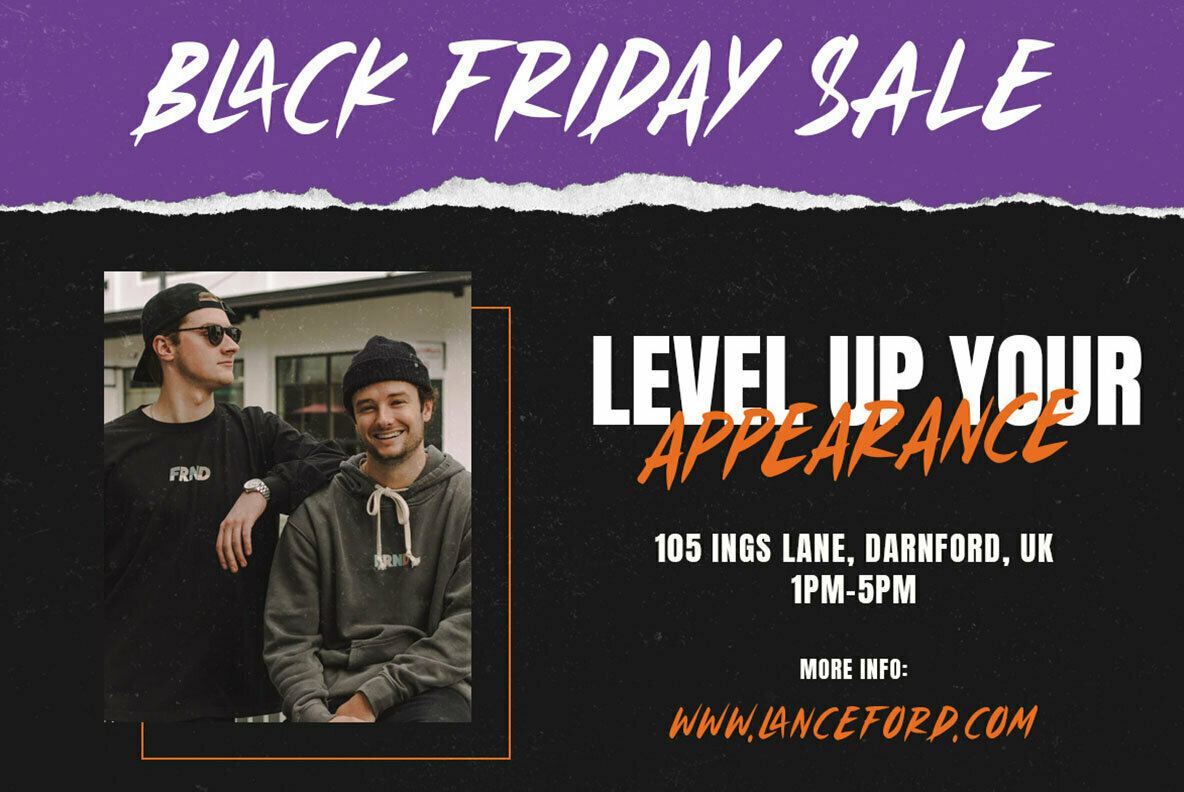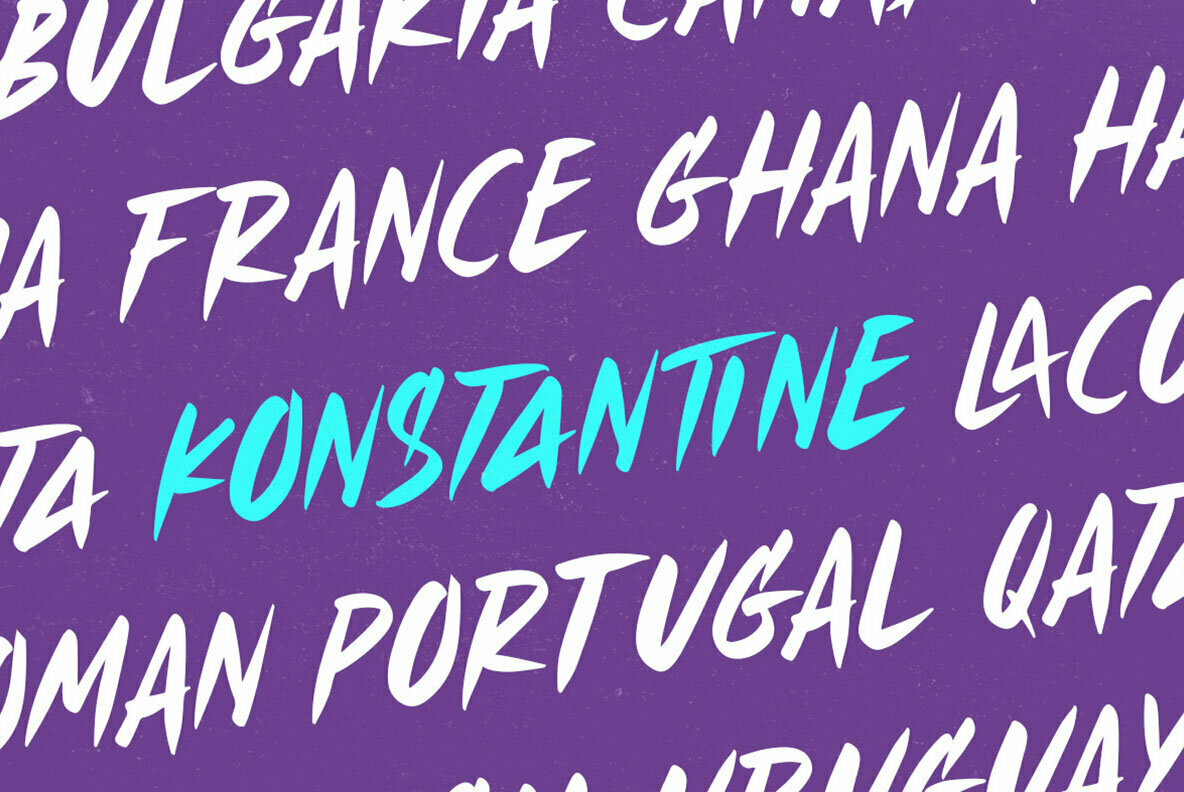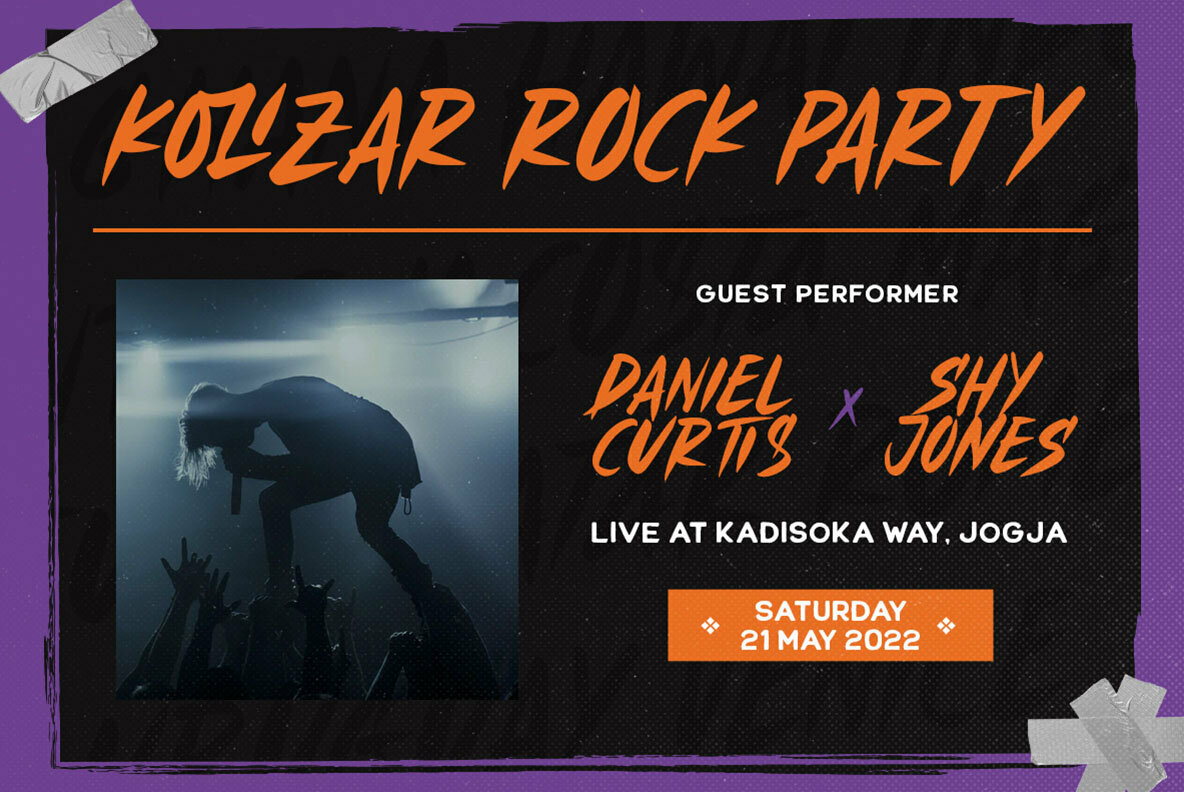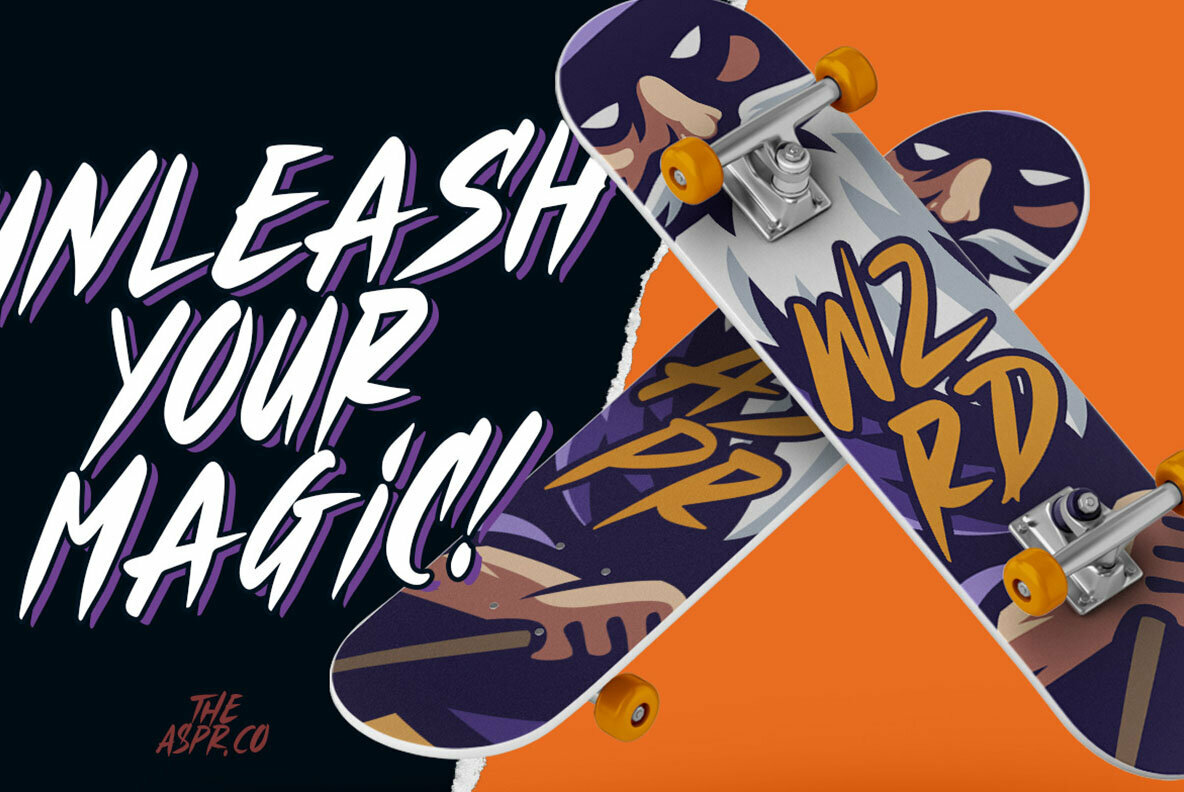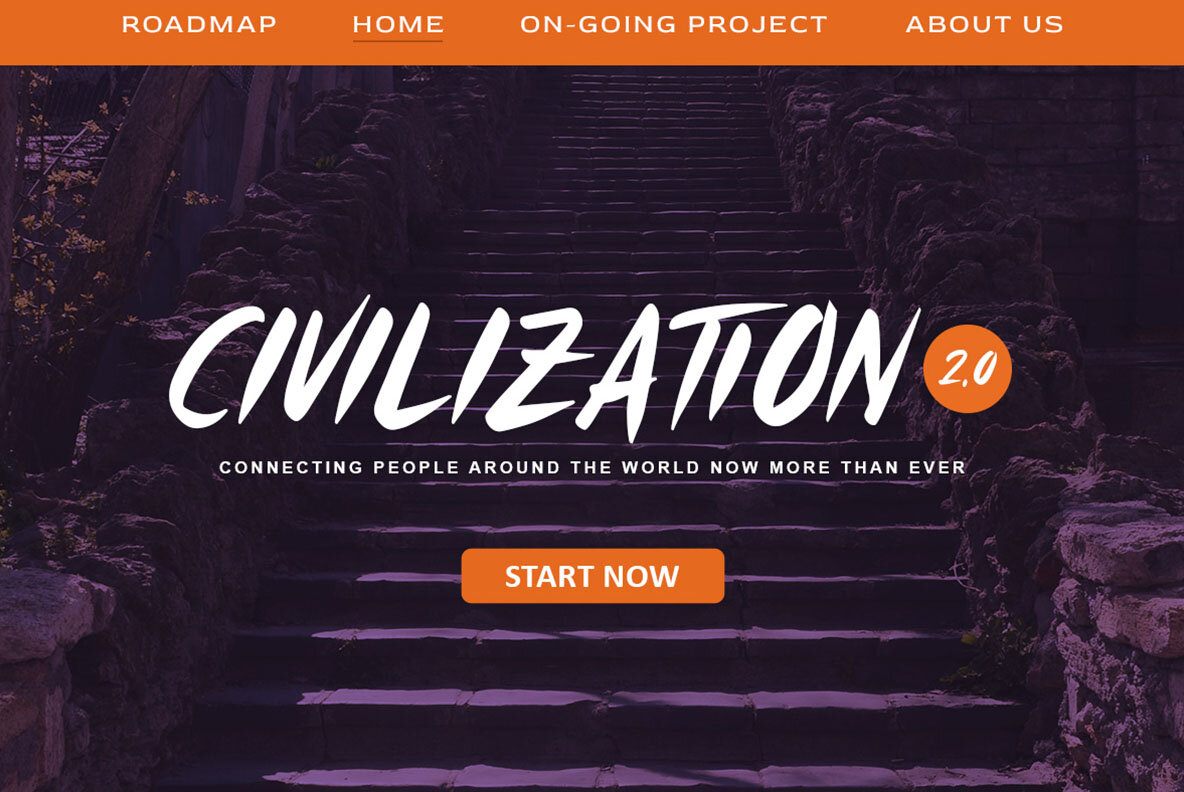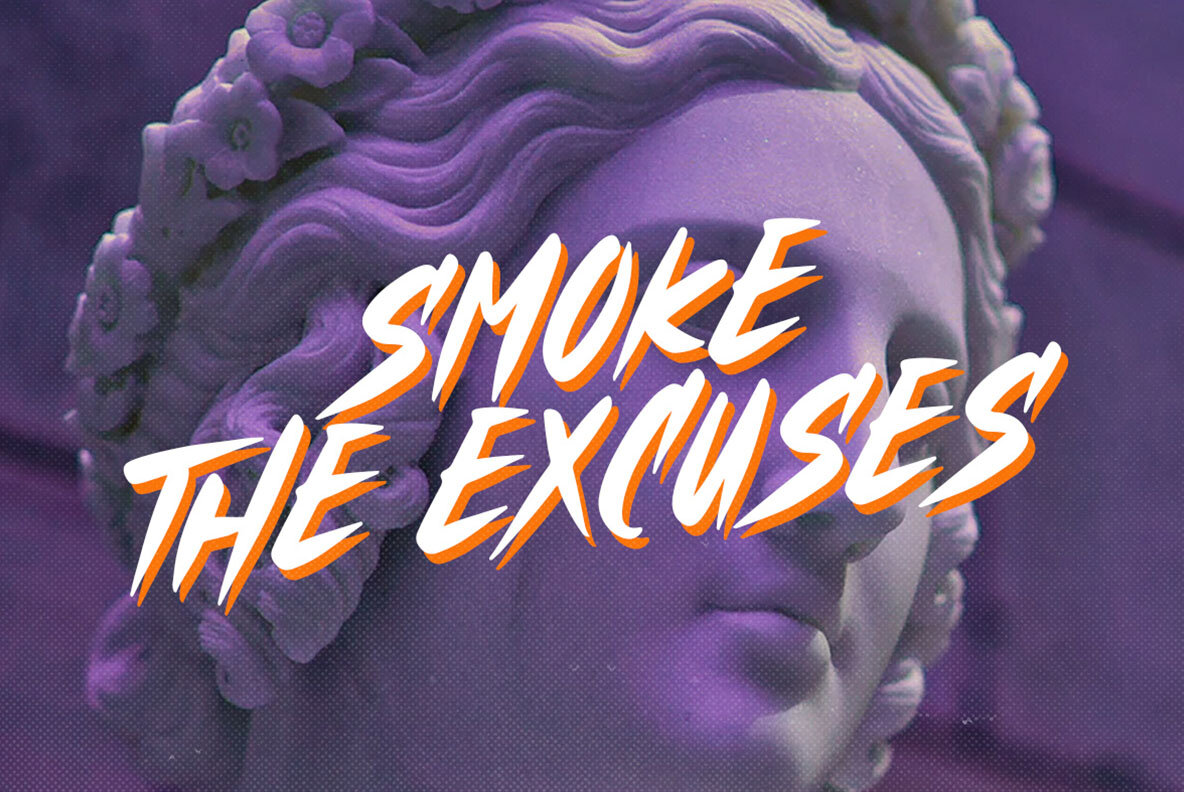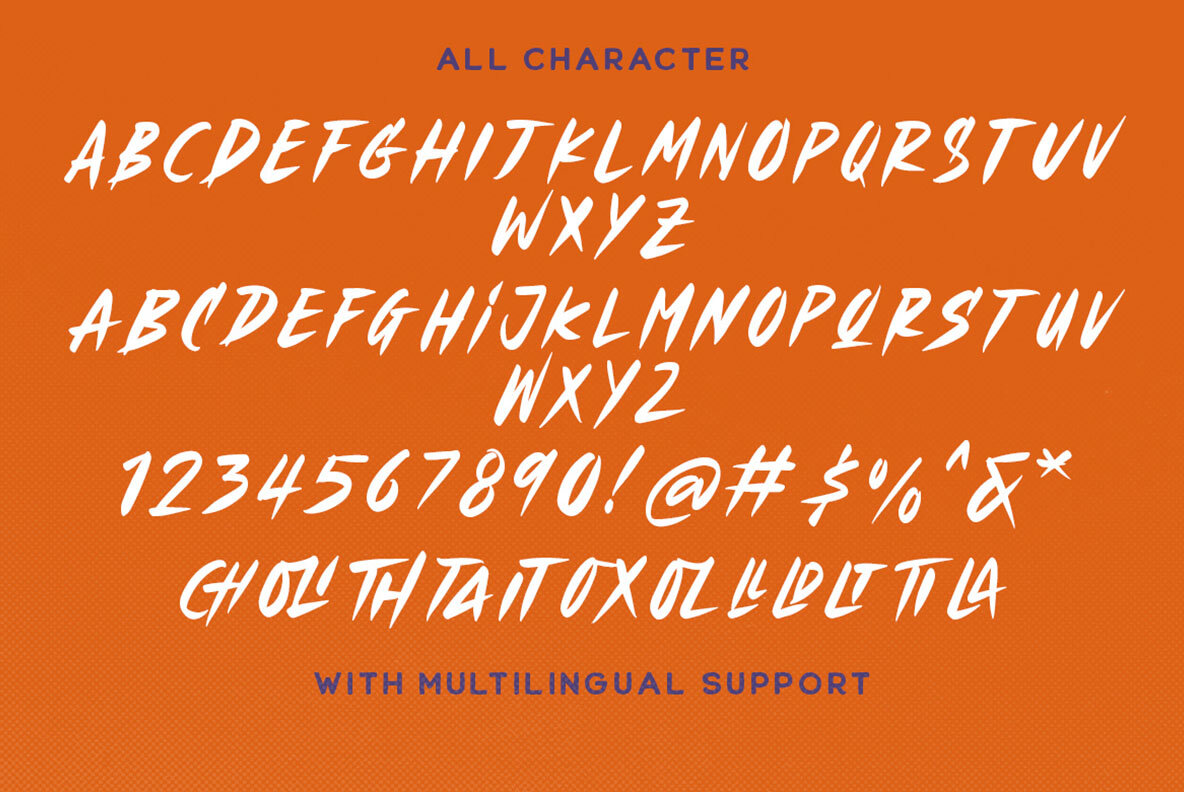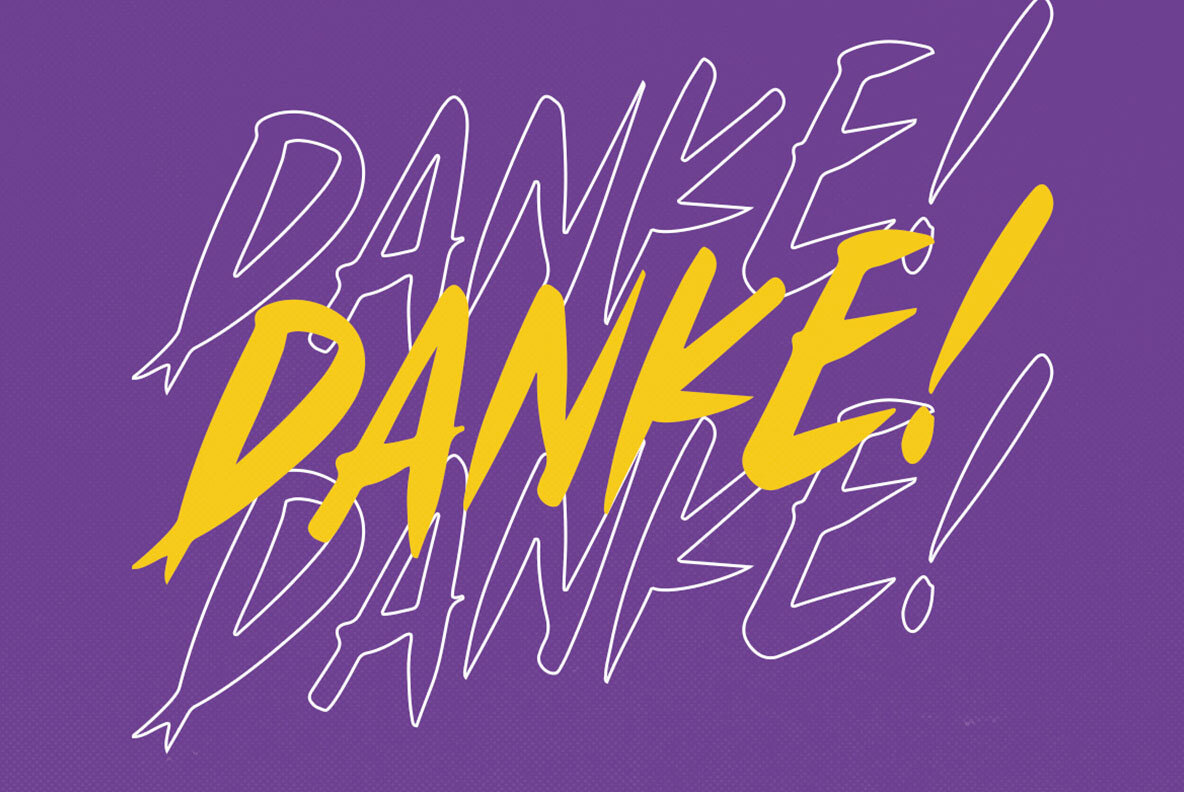
Strange Piece Font
Strange Piece
Strange Piece by Letterhend Studio introduces a modern and playful typeface, thoughtfully crafted for headlines, displays, and logotypes. Its fresh design provides a unique flair, making it an excellent choice for logos and various formal applications, from invitations to packaging. This font's versatility finds perfect expression across diverse forms such as labels, magazines, greeting cards, and advertising materials. Its distinctive personality serves well in contexts ranging from fashion to stationery, enhancing the visual appeal of your creative work.Strange Piece: A Modern Typeface for Versatile Design